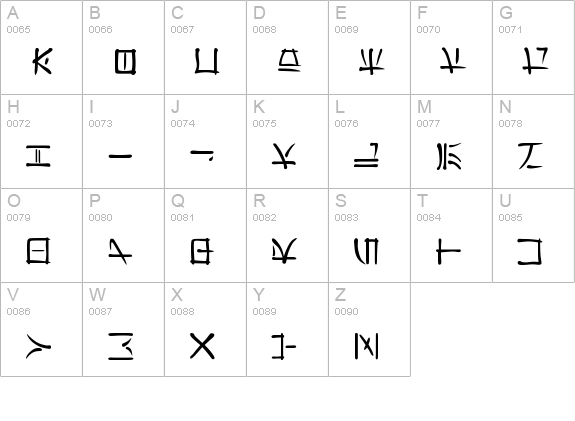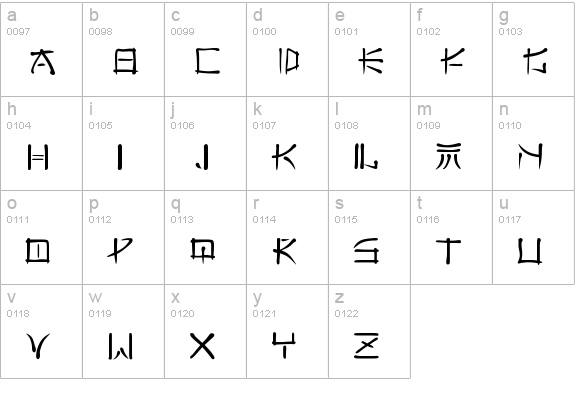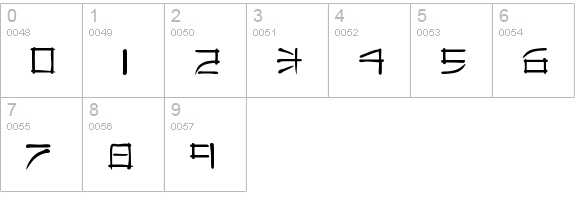
Far East font is an elegant and sophisticated typeface inspired by the intricate beauty of Asian calligraphy. Its graceful strokes and delicate curves evoke a sense of mystery and tradition, making it perfect for projects that require a touch of exotic elegance. The Far East font is versatile and can be used for a variety of design purposes, from branding to invitations to packaging. What's even better is that Far East font is available for free download at FontsMarket.com. You can easily access this stunning typeface without any cost, making it a valuable addition to your font collection. Embrace the allure of the Far East with this unique and captivating font that will elevate your designs to new heights.